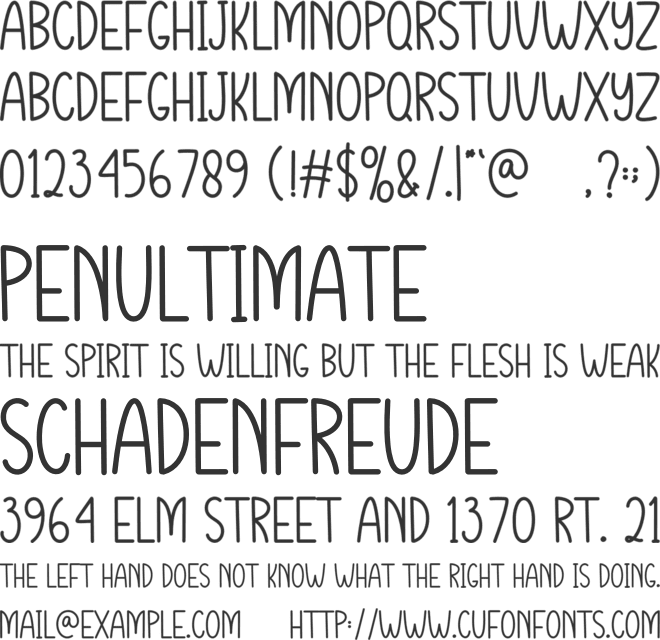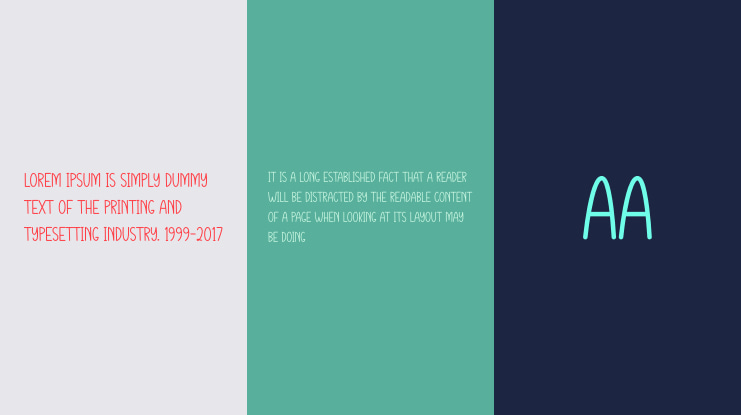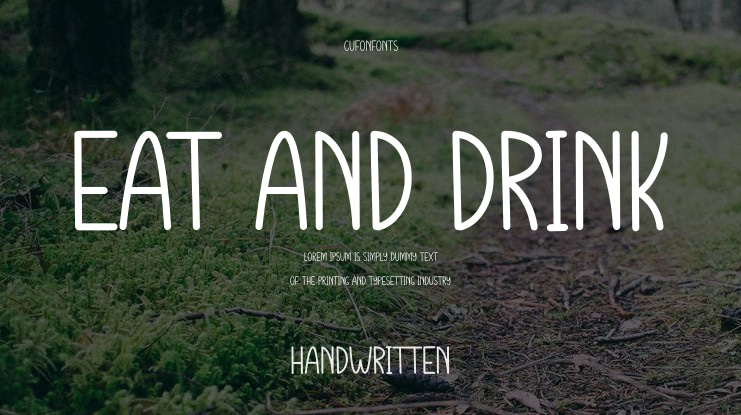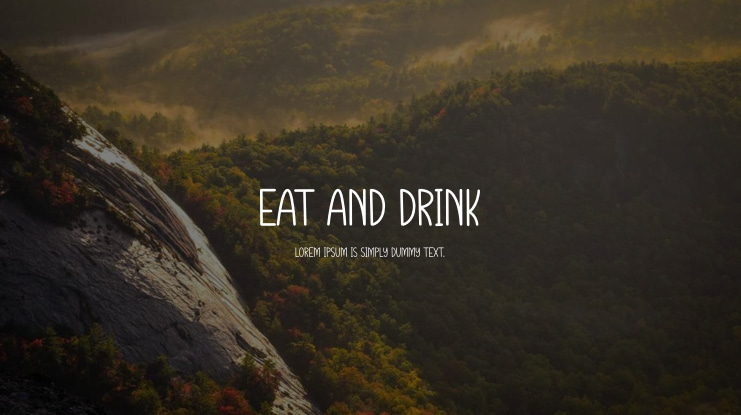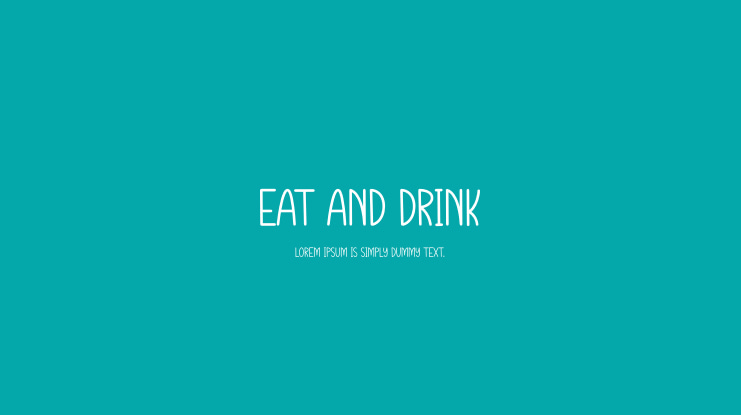
Eat And Drink Font
Introducing our exclusive and innovative products designed to elevate your creative projects. Our unique range of products promises to deliver an unparalleled experience. With the latest trendy fonts, you can enhance various elements such as wall displays, wedding invitations, social media logos, advertisements, packaging, product designs, labels, photography, watermarks, invitations, stationery, and more, with a touch of elegant handwriting.